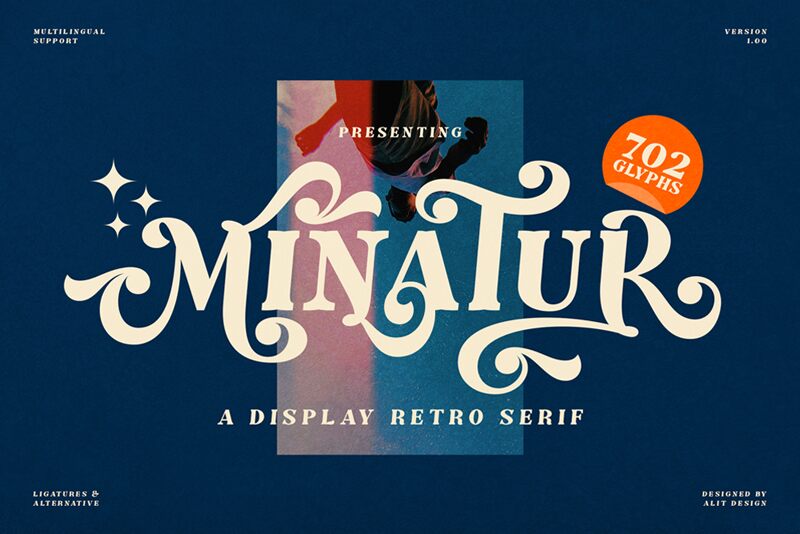
Minatur, a striking serif font crafted by the skilled hands of Alit Design, emanates a bold and commanding presence. With its robust, unapologetic strokes and distinctive flourishes, this typeface exudes an air of sophistication and authority. Its dramatic silhouette and strong contrast captivate the eye, inviting the viewer to linger and immerse themselves in the powerful, emotive message it conveys.
Minatur's versatility makes it a compelling choice for a diverse range of design projects. Its bold personality lends itself seamlessly to headings, titles, and editorial content, commanding attention and leaving a lasting impression. Whether adorning the cover of a high-profile magazine or gracing the masthead of a corporate website, Minatur's striking aesthetics effortlessly elevate the visual impact of any design.